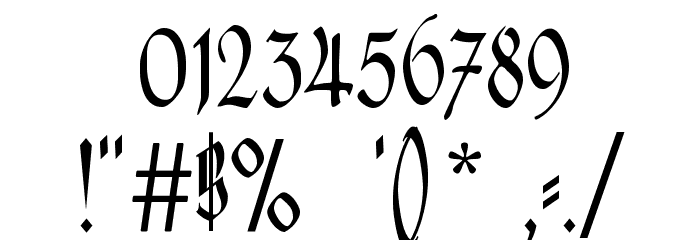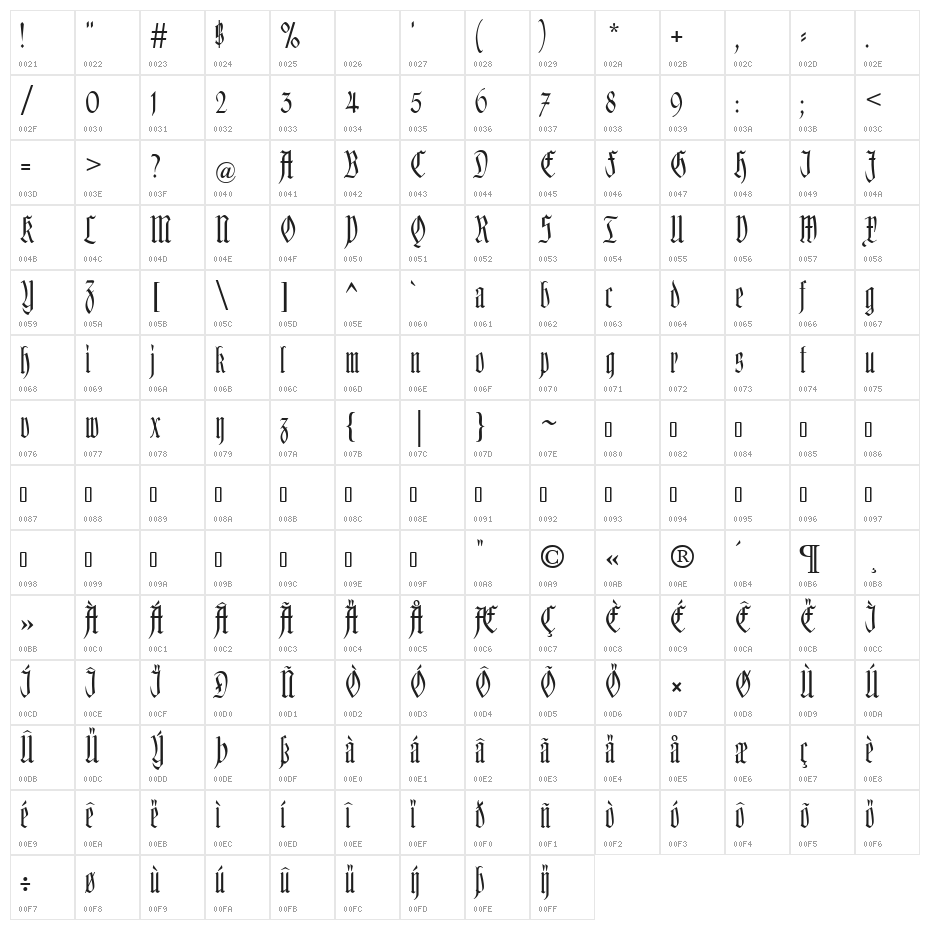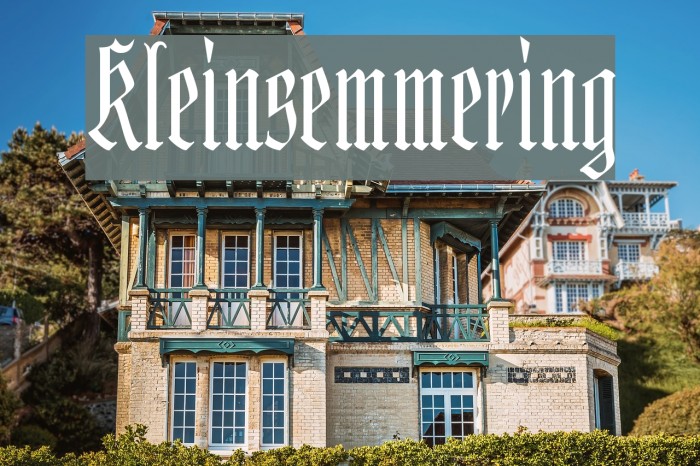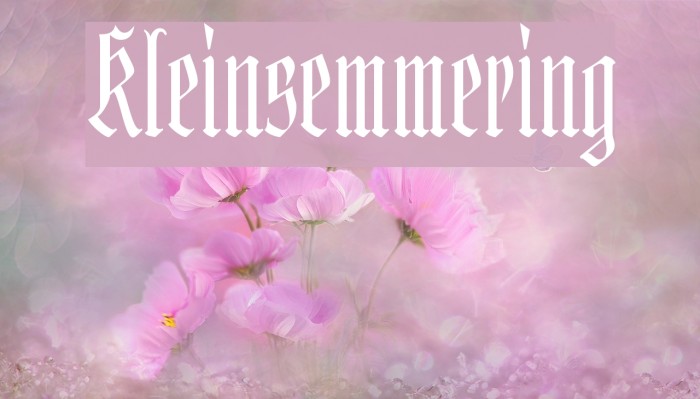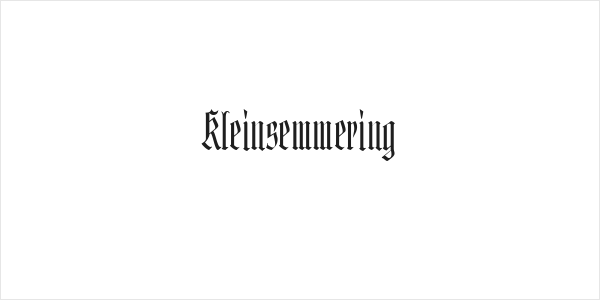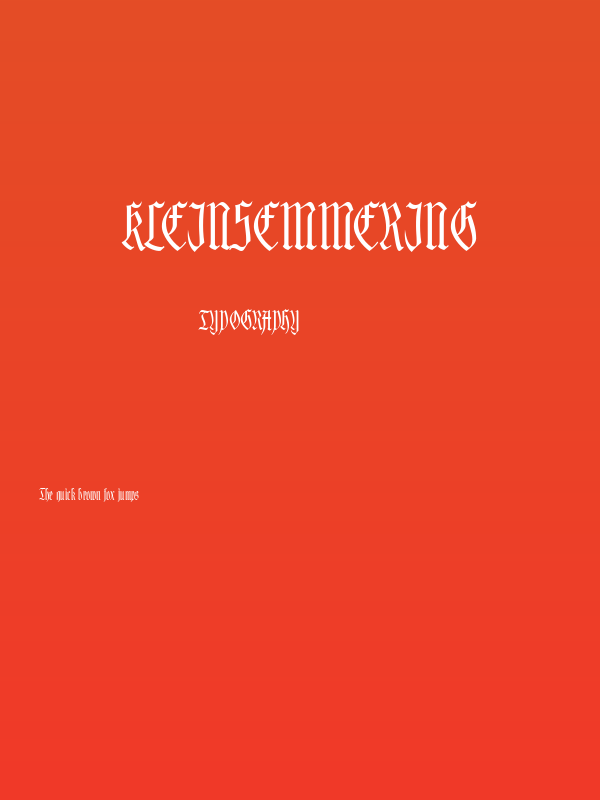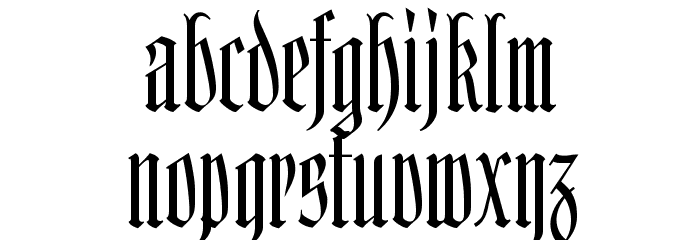
Kleinsemmering Font
Kleinsemmering Description
This font exudes a classic and historical aura, reminiscent of traditional calligraphy with its intricate and ornate design. The characters are sharply defined with a distinct blackletter style, featuring high contrast between thick and thin strokes. The uppercase letters are particularly elaborate, with decorative flourishes that enhance their gothic appearance. The lowercase letters maintain a consistent style, offering a cohesive look across the typeface. Numbers and special characters are designed to match the overall aesthetic, ensuring uniformity. This font is ideal for projects that require a touch of elegance and historical depth.